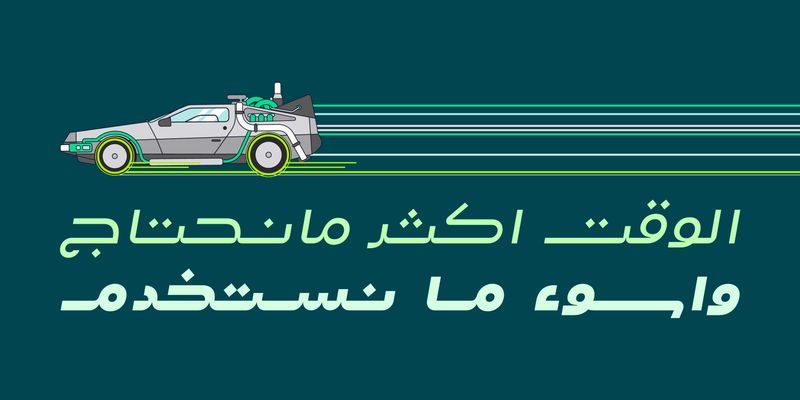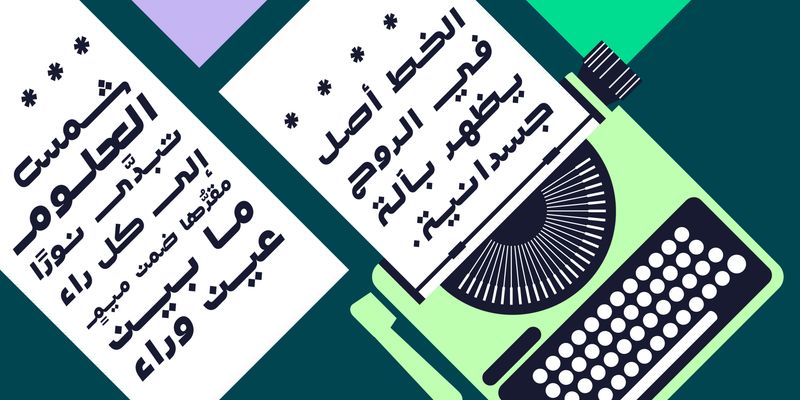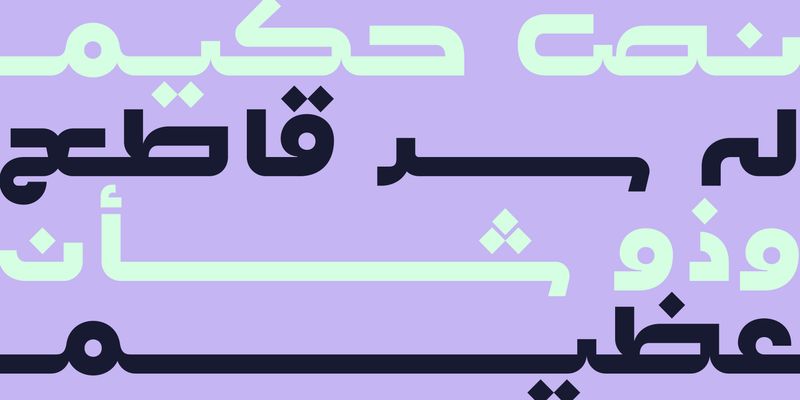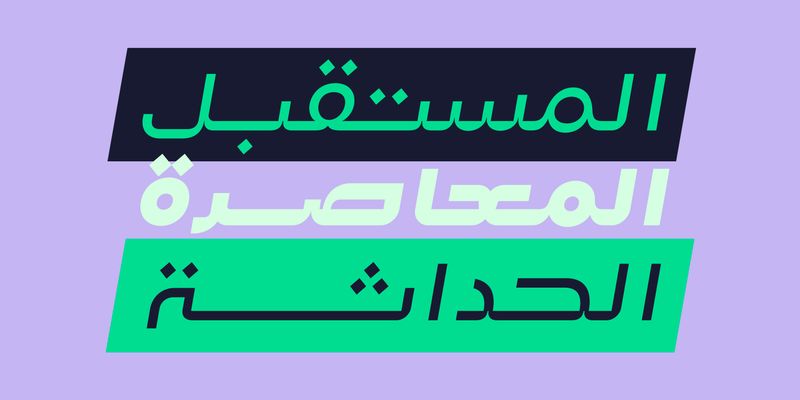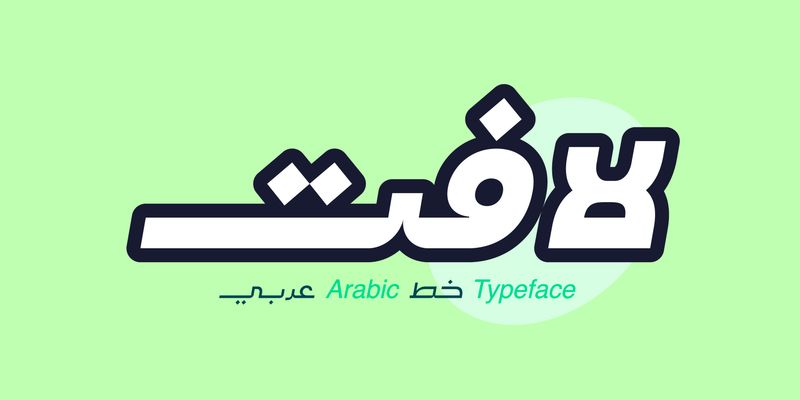
Lafet (the Arabic word for “Catchy”) is an Arabic typeface featuring dynamic letterforms. Its style reflects both modernity and simplicity, making it suitable for design projects that require an energetic and powerful look. The Lafet typeface is available in four styles: Regular, Bold, Oblique Regular, and Oblique Bold.
Mostafa El Abasiry is an independent Arabic type designer whose work has helped define a new era of expressive Arabic typography. Since 2009, he has built a distinctive and influential catalogue of Arabic typefaces known for their bold geometry, modern aesthetics, and emotionally resonant visual character. His designs are widely recognized for merging the structural clarity of geometric construction with the creative freedom of contemporary display typography.
Mostafa’s approach is rooted in a balance of mathematical precision and artistic intuition. Many of his typefaces begin as geometric studies - circles, arcs, grids, and modular systems, before evolving into expressive display families with strong visual identity. Other designs explore texture, layering, and experimental forms, expanding the expressive potential of Arabic letterforms in digital environments.
In 2017, Mostafa introduced Tajreed, the first Arabic OpenType‑SVG color font ever created. This pioneering work brought textured, multi‑layered Arabic typography into mainstream digital use and opened a new category of expressive Arabic tools for designers and everyday creators. Tajreed later grew into a broader ecosystem of textured and experimental families that influenced how Arabic typography appears in mobile apps, creative platforms, and user‑generated content.
Mostafa’s typefaces have been used by a wide range of clients, from global brands such as Apple TV+ and Turkish Airlines to millions of everyday creators. Despite this reach, his design process remains deeply personal: every typeface begins with hand‑drawn sketches, geometric construction, and a search for a unique visual voice rooted in Arab visual culture.
Today, Mostafa continues to expand his catalogue with new display families, textured experiments, and modern interpretations of Arabic typographic heritage. His work aims to give designers and creators expressive tools that did not exist before - tools that make Arabic typography feel bold, modern, and alive.